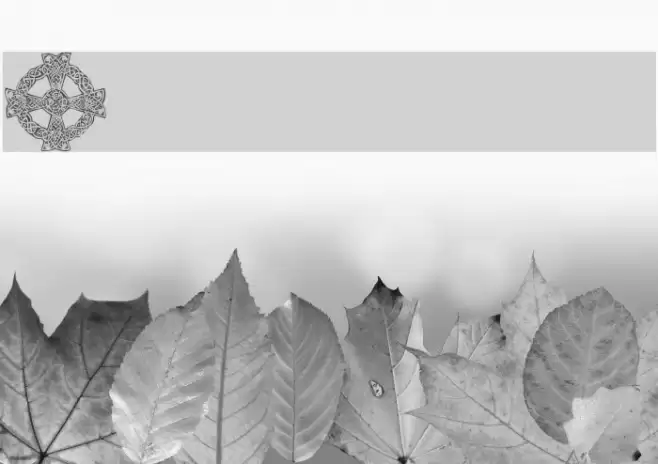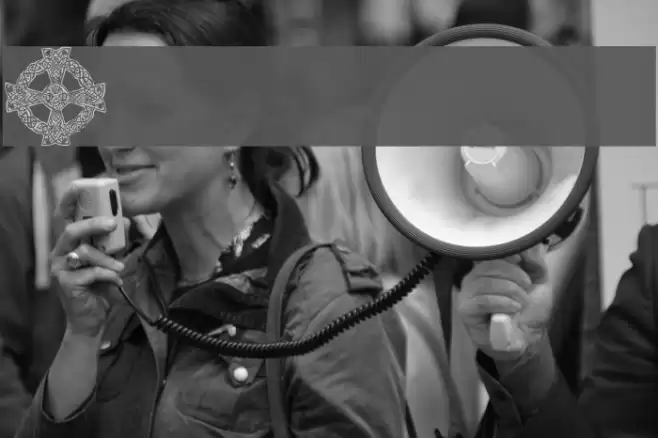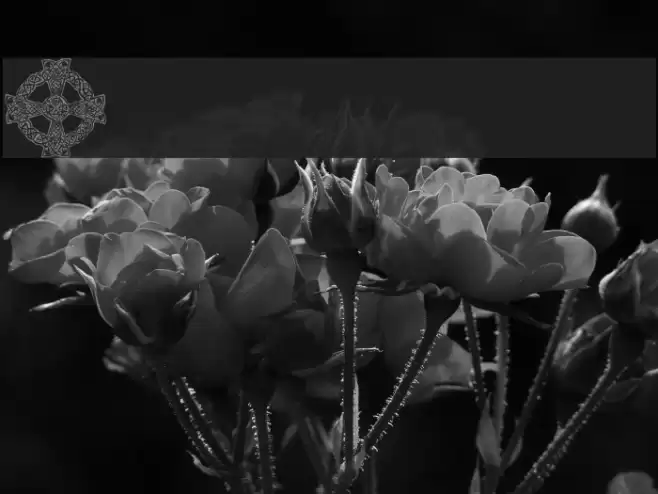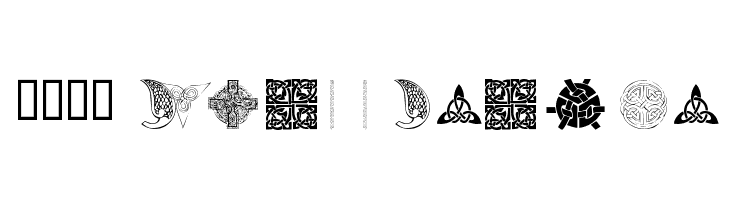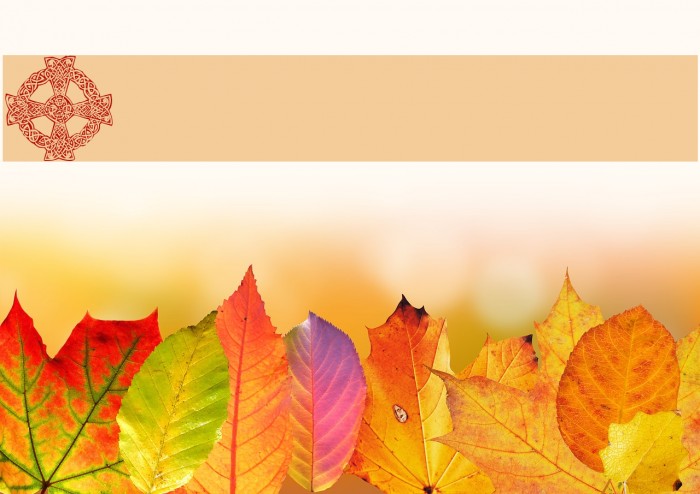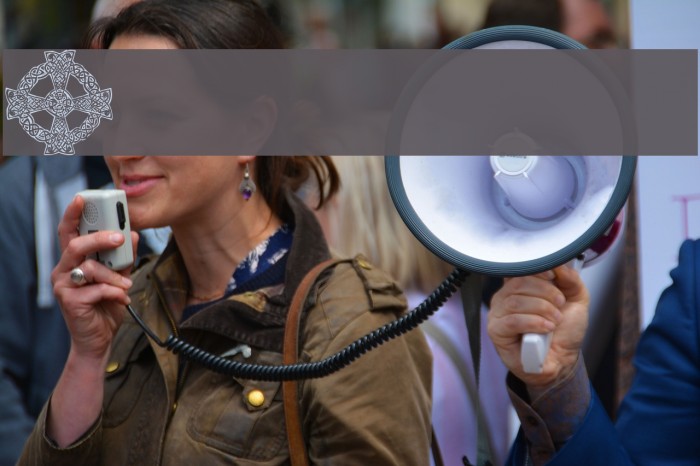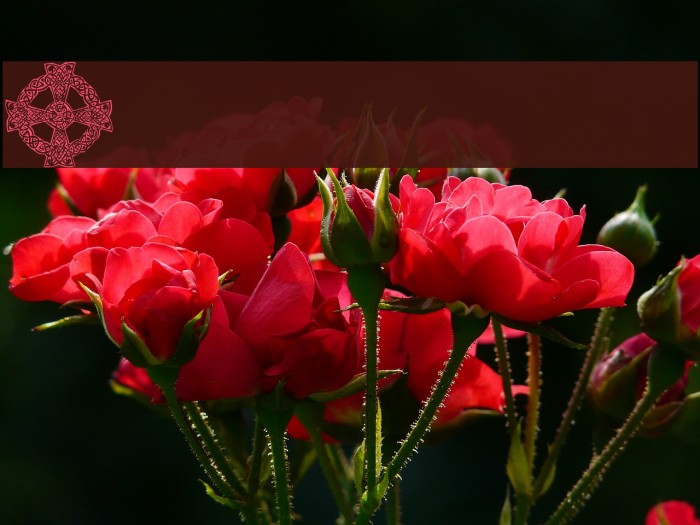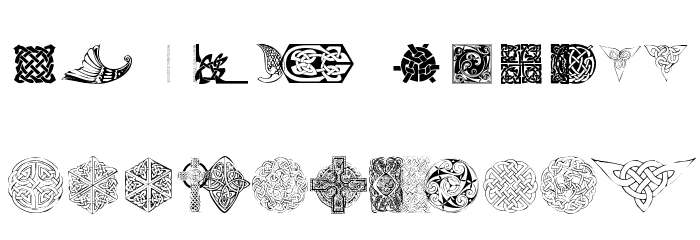
101! Celtic DeZignZ Font
101! Celtic DeZignZ Description
A decorative collection of intricate Celtic-inspired symbols and knotwork designs, featuring detailed, ornamental motifs rather than traditional letterforms or numerals.
Ornamental Celtic knotwork and symbol dingbats from Uncategorized fonts.
- Proposed Projects: Celtic-themed invitations, decorative borders, tattoo designs, historical or fantasy projects, logos, and crafts.
- Overall Style: Decorative, Celtic, Ornamental
- Use Case: Decorative elements, Borders, Logos, Themed graphics